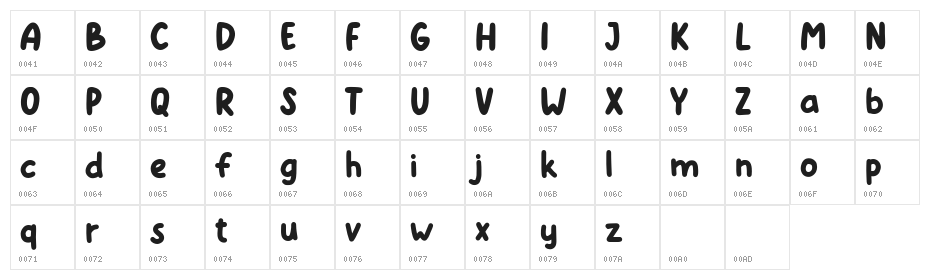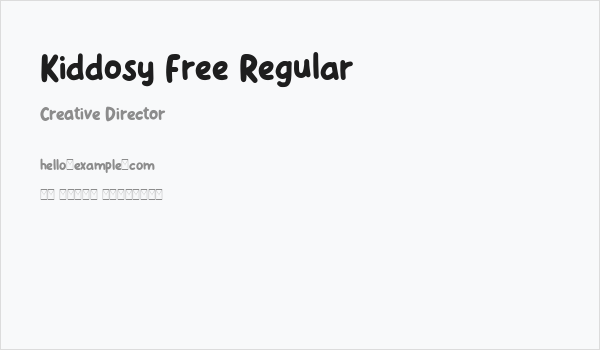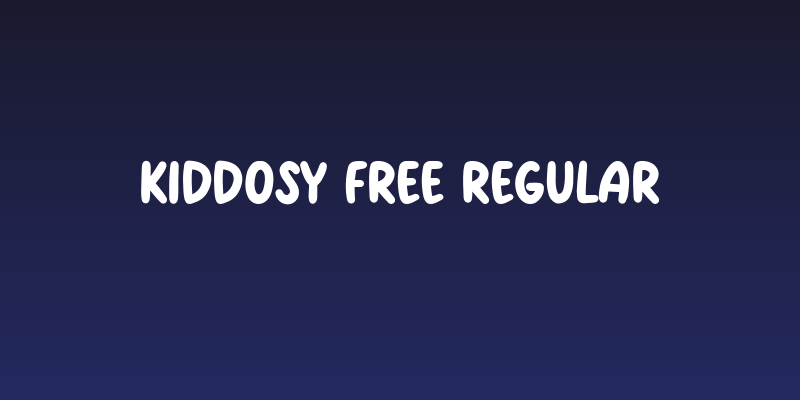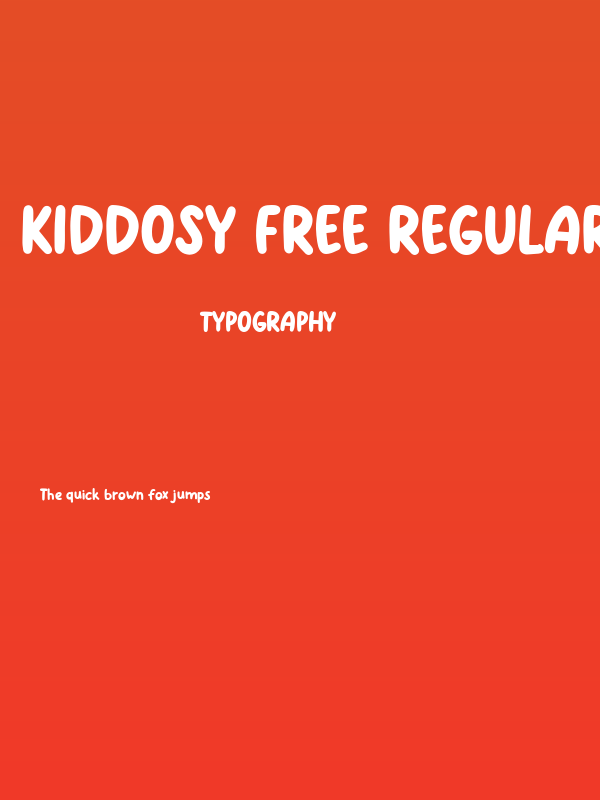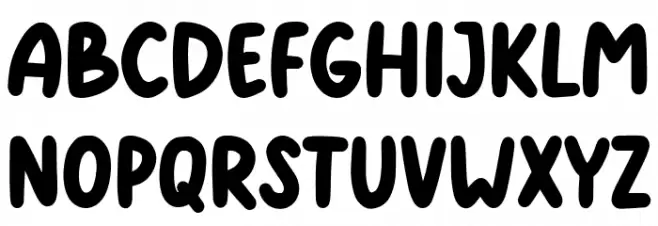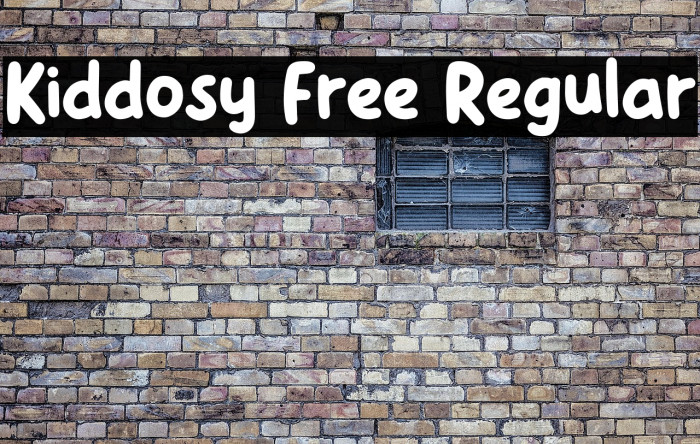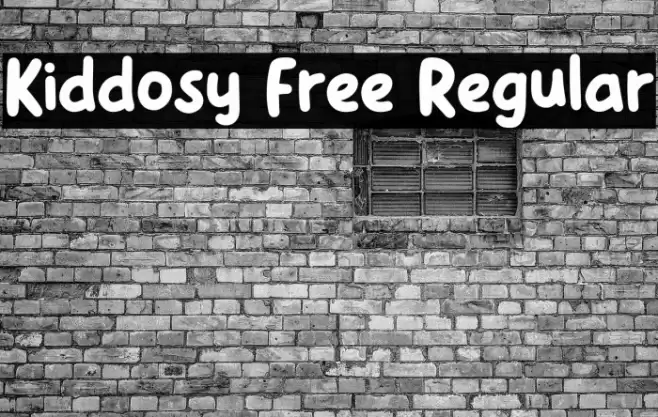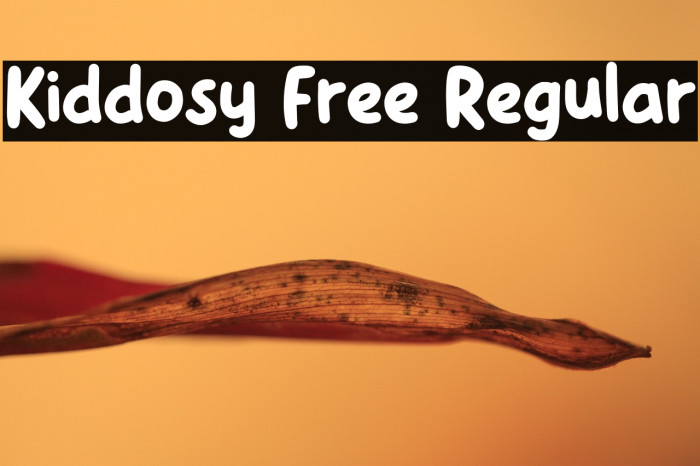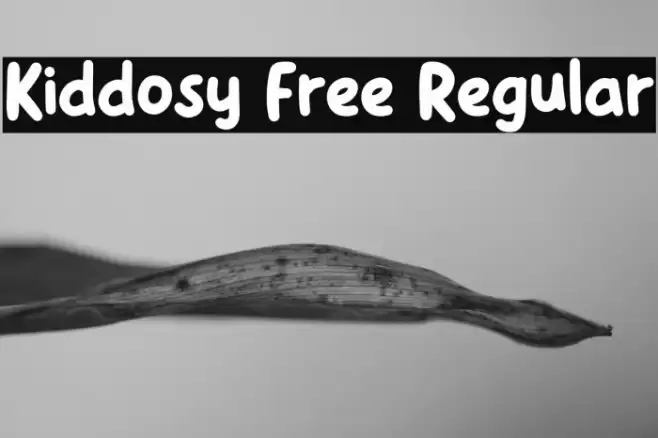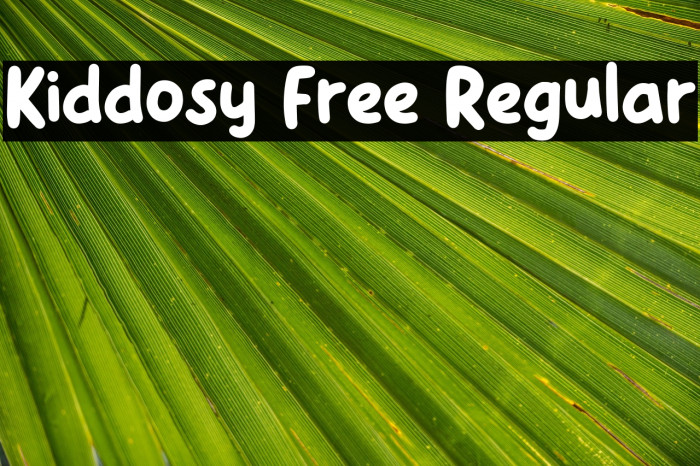
Kiddosy Free Regular Font
Kiddosy Free Regular Description
This playful and rounded font features bold, smooth curves and a friendly appearance, making it ideal for children's content and informal designs. The characters are evenly spaced with a consistent stroke width, giving it a cohesive look. The uppercase and lowercase letters maintain a uniform style, enhancing readability while adding a touch of whimsy. Its simplicity and charm make it suitable for a variety of creative projects, from educational materials to playful branding.
| Overall Style | Playful |
| Use Case | Headlines, Logos, Children's content |
| Proposed Projects | Ideal for children's books, educational materials, playful branding, and informal invitations. |